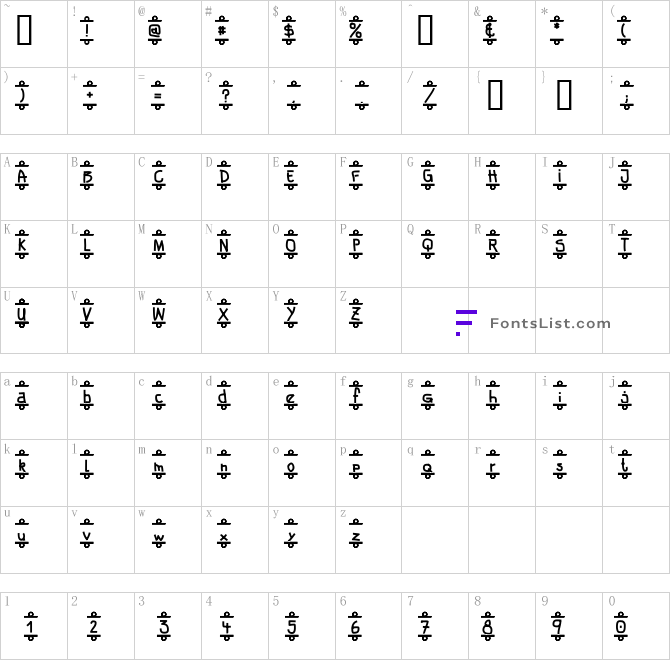
• Font Name:Banner
Banner-.ttf is a very beautiful artistic font, Banner-.ttf is widely used in the design and printing of various books and pictures,Banner-.ttf has a strong visual impact,Banner-.ttf is a commonly used font in newspapers, magazines and books, and is used in posters, e-commerce Poster design, store design, logo design, font design and other fields.Banner-.